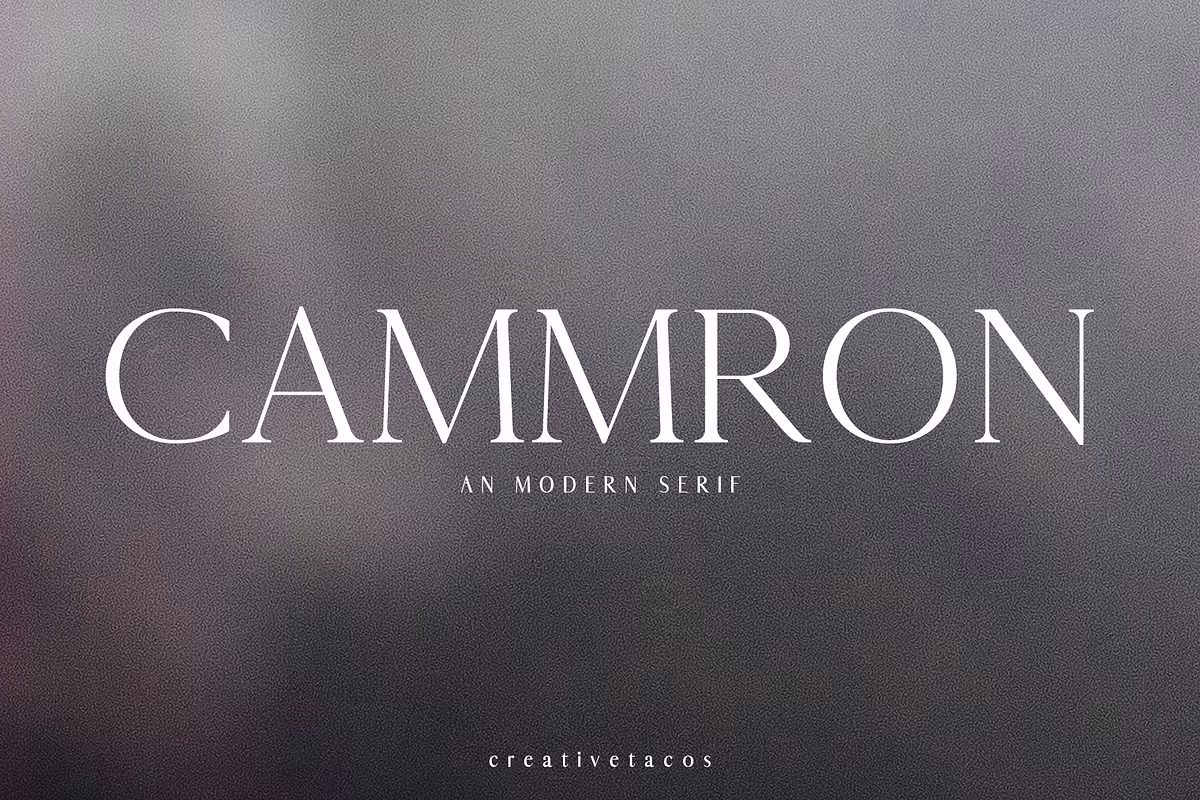
Cammron Font Free Download is a sophisticated serif font family designed to bring elegance, structure, and timeless beauty to your design projects. With its classic letterforms, modern details, and multiple weights, Cammron is perfect for branding, editorial design, wedding invitations, packaging, and minimalist web layouts.
Crafted with balance and refinement, Cammron Font Free Download offers both visual impact and legibility. From bold headlines to delicate body text, this font family provides the flexibility to build a complete and cohesive visual identity. Its high contrast strokes and graceful serifs make it ideal for luxury aesthetics and professional layouts.
Cammron pairs beautifully with clean sans-serifs or elegant scripts, allowing for dynamic and sophisticated typography combinations. Whether you're designing for fashion, lifestyle, or editorial content, this font adds a polished, high-end feel to your work.